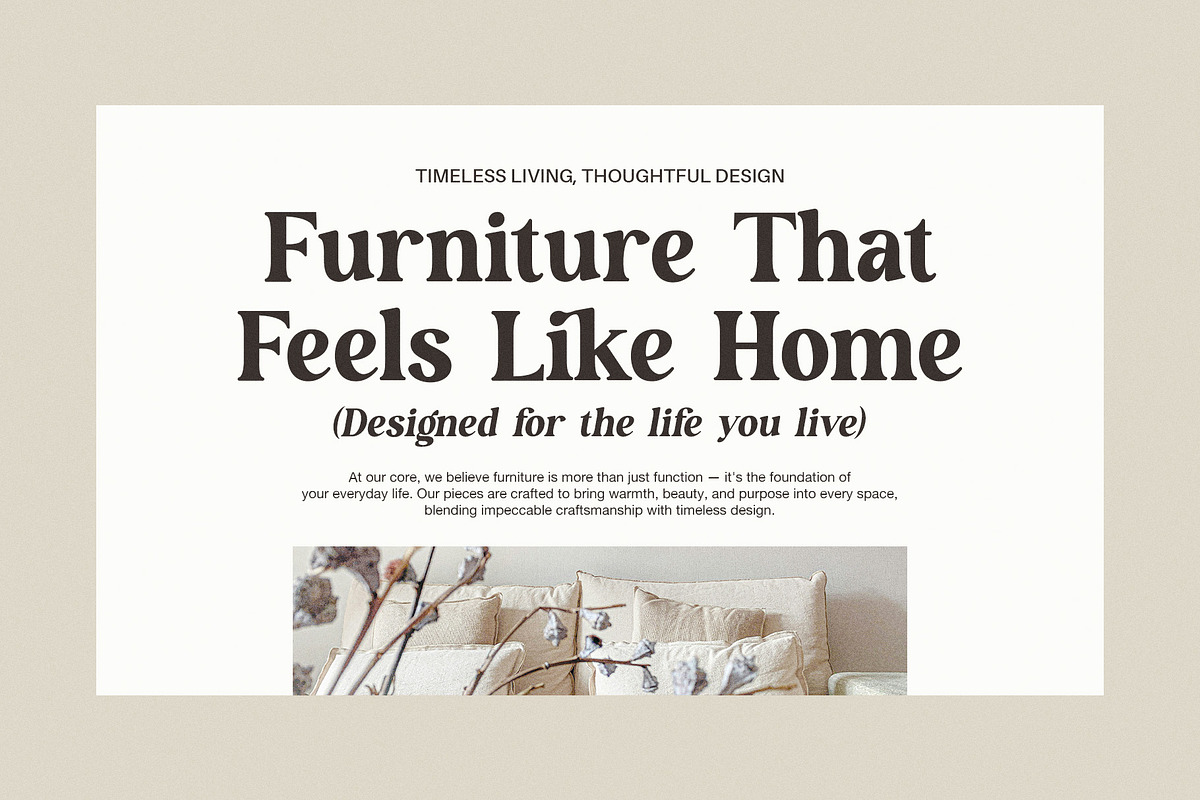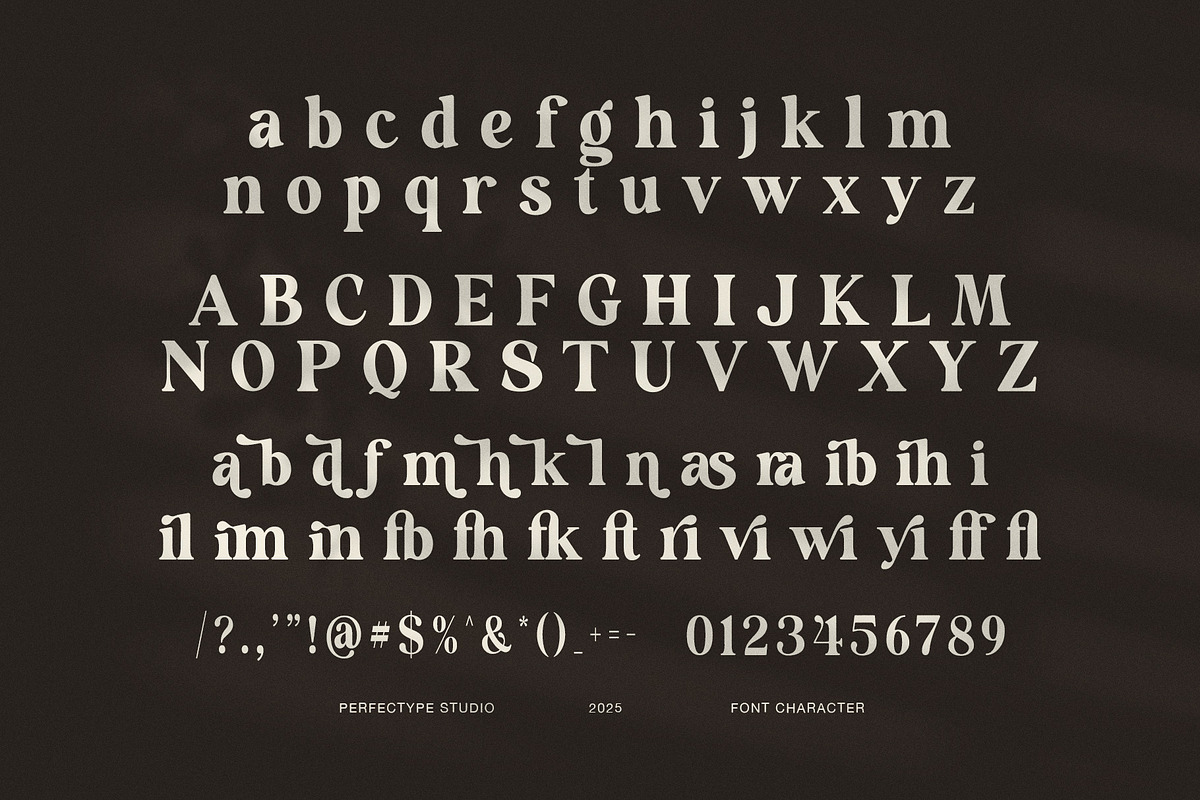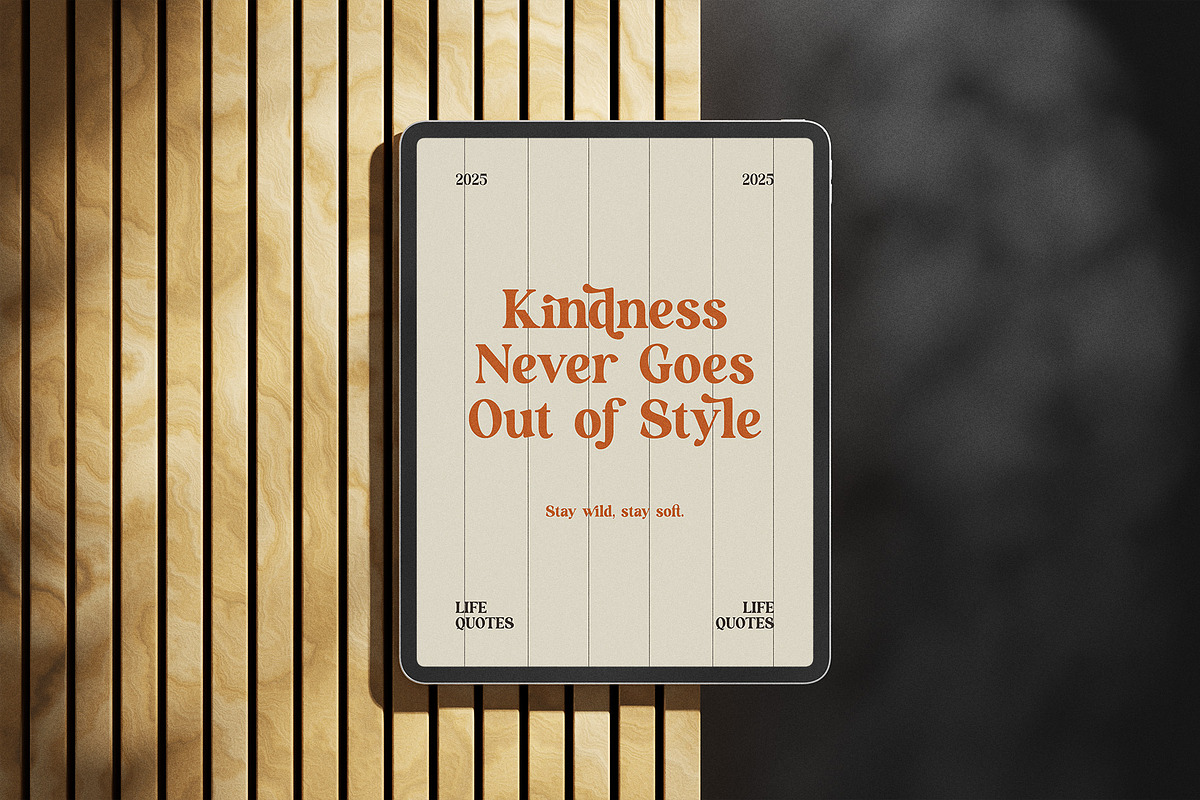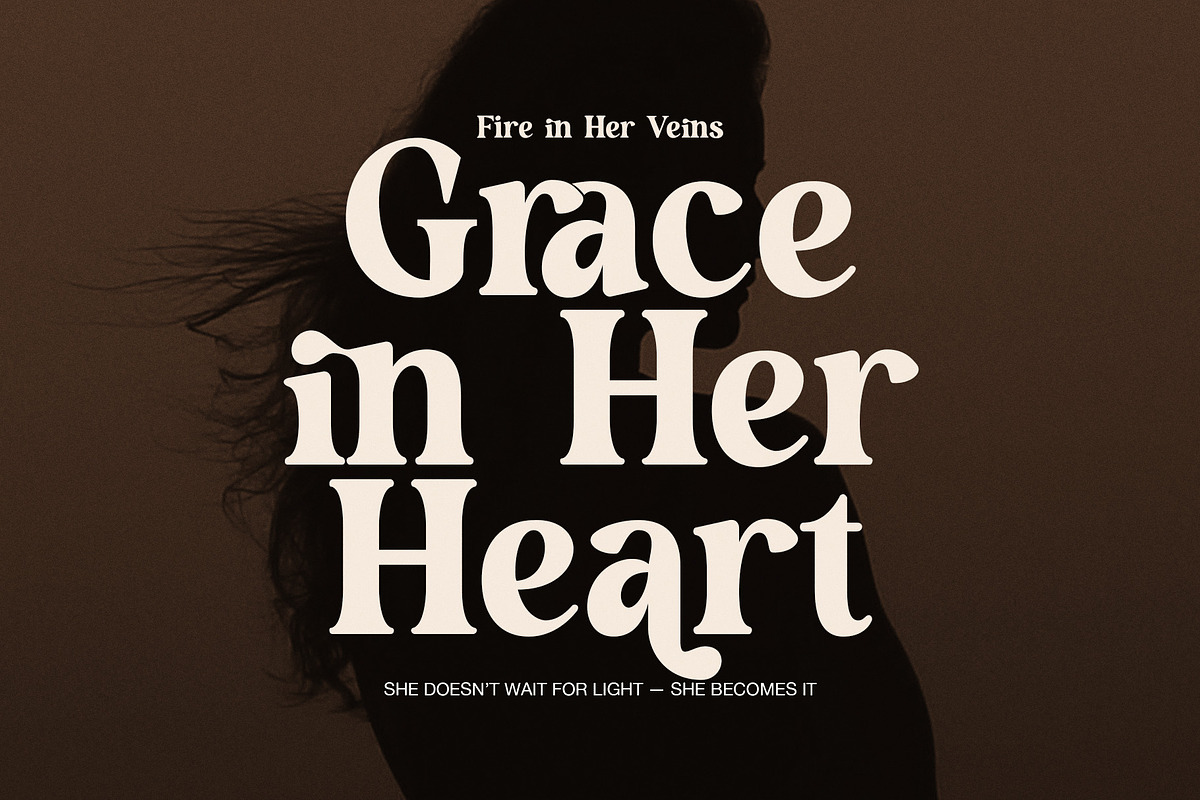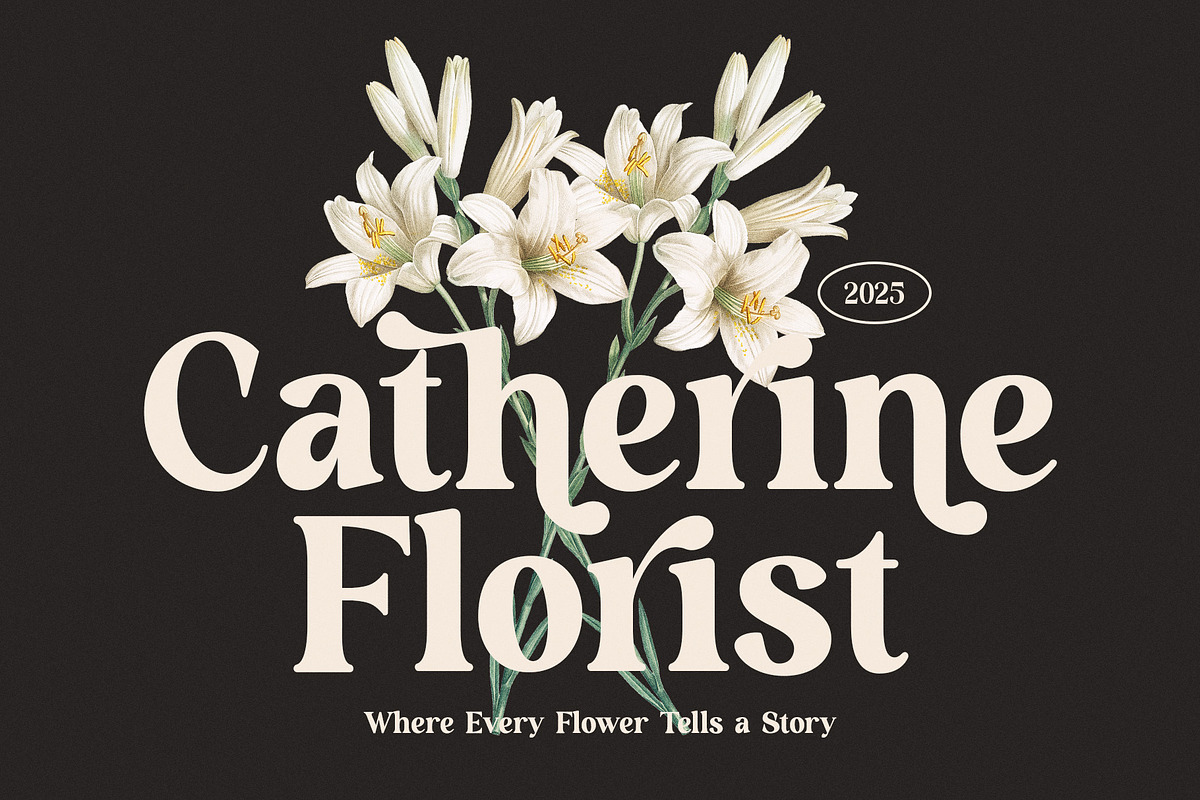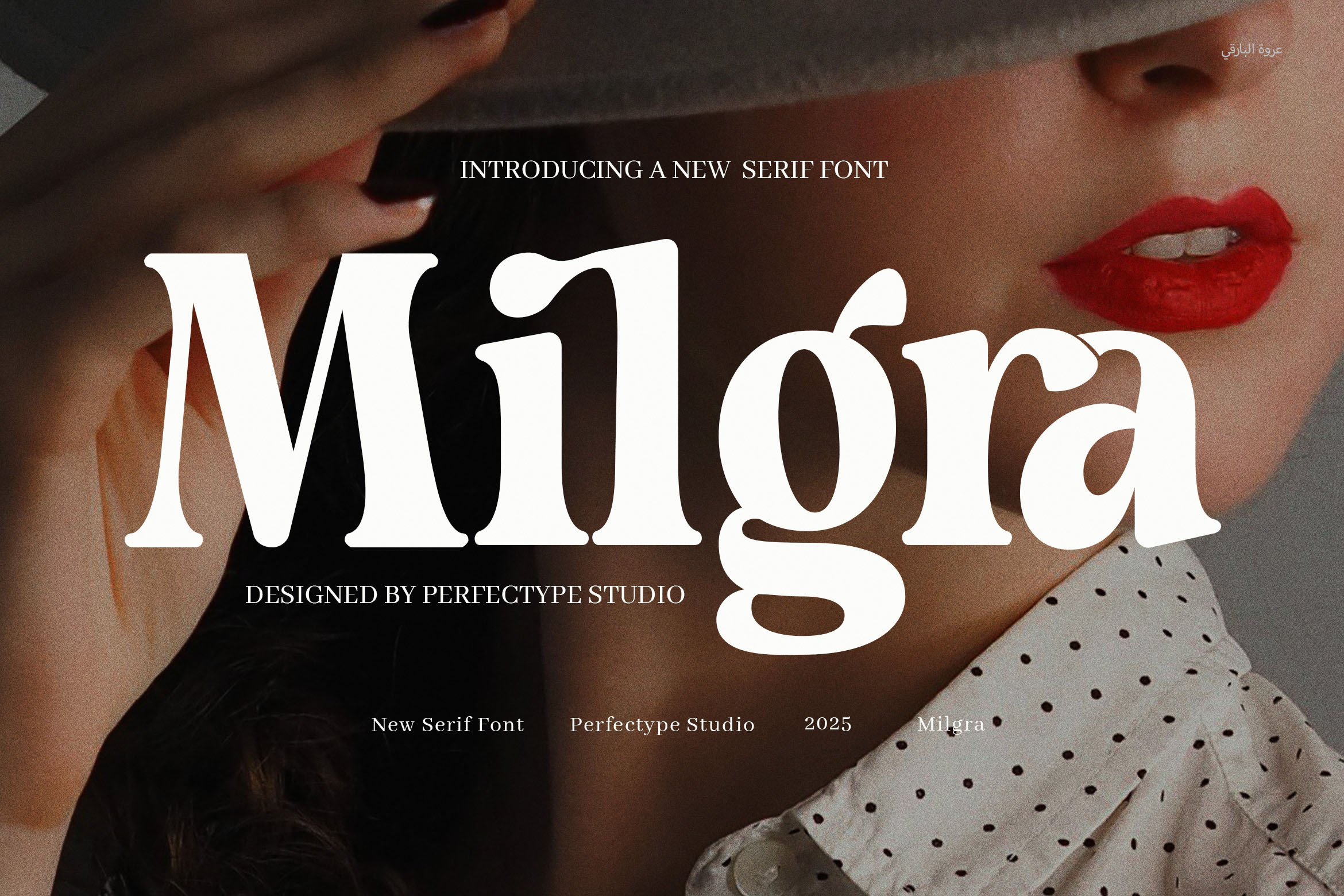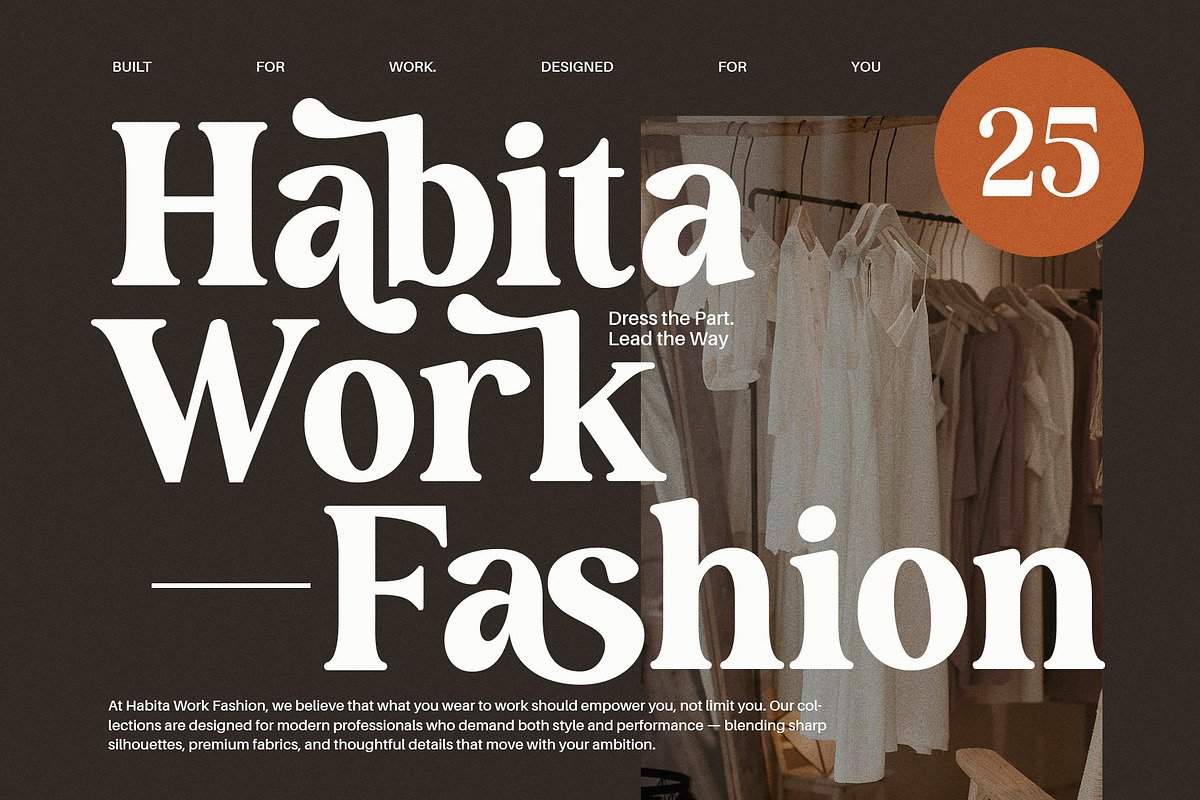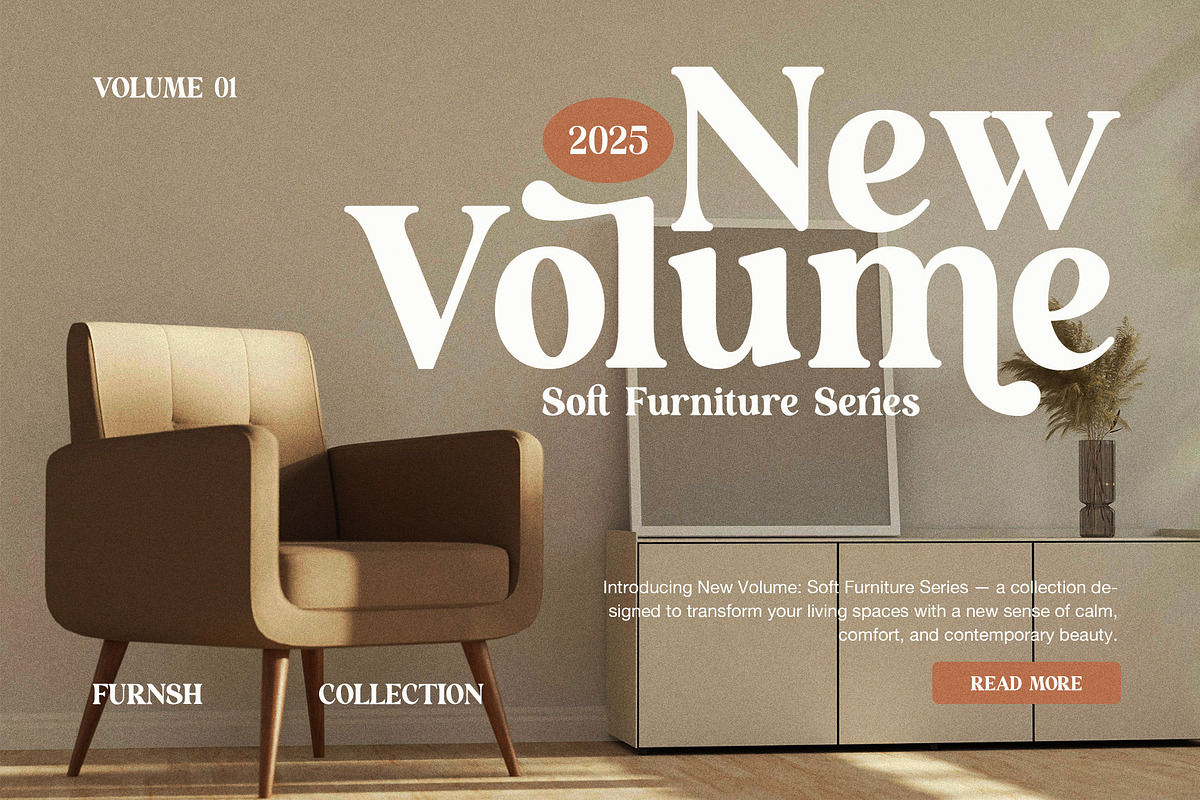
Milgra Elegant Serif Font
Milgra Elegant Serif Font is a striking blend of graceful form and modern design, built to bring elegance, clarity, and sophistication to any visual project. Characterized by soft curves, high contrast strokes, and delicate detailing, Milgra is a serif font that feels both timeless and fashion-forward.
What truly defines Milgra is its sculpted letterforms—each glyph is meticulously balanced to offer a harmonious look, with gentle flared serifs and subtle angles that add a sense of movement and refinement. The font features a set of stunning ligatures and thoughtfully designed alternate characters, enabling endless possibilities for customization and creativity. These stylistic touches lend a luxurious, editorial feel that’s perfect for elegant branding and high-impact design.
Milgra works beautifully as a display font, where its distinctive personality can shine. It's ideal for logo design, magazine headlines, boutique packaging, wedding stationery, and modern website headers. The ligatures add a handcrafted flair, making even simple words feel bespoke and artful. Meanwhile, the alternates let you add variety and personality, whether you're creating a bold title or a romantic typographic composition.
Despite its refined aesthetic, Milgra remains highly versatile. Its readability and balanced spacing make it suitable for everything from product labels and fashion lookbooks to minimalist social media graphics and stylish advertisements. The font carries a quiet confidence—elegant, but never overstated.
Whether you’re designing for the beauty industry, a luxury lifestyle brand, gourmet packaging, or contemporary publishing, Milgra brings a polished and professional tone to every letterform.